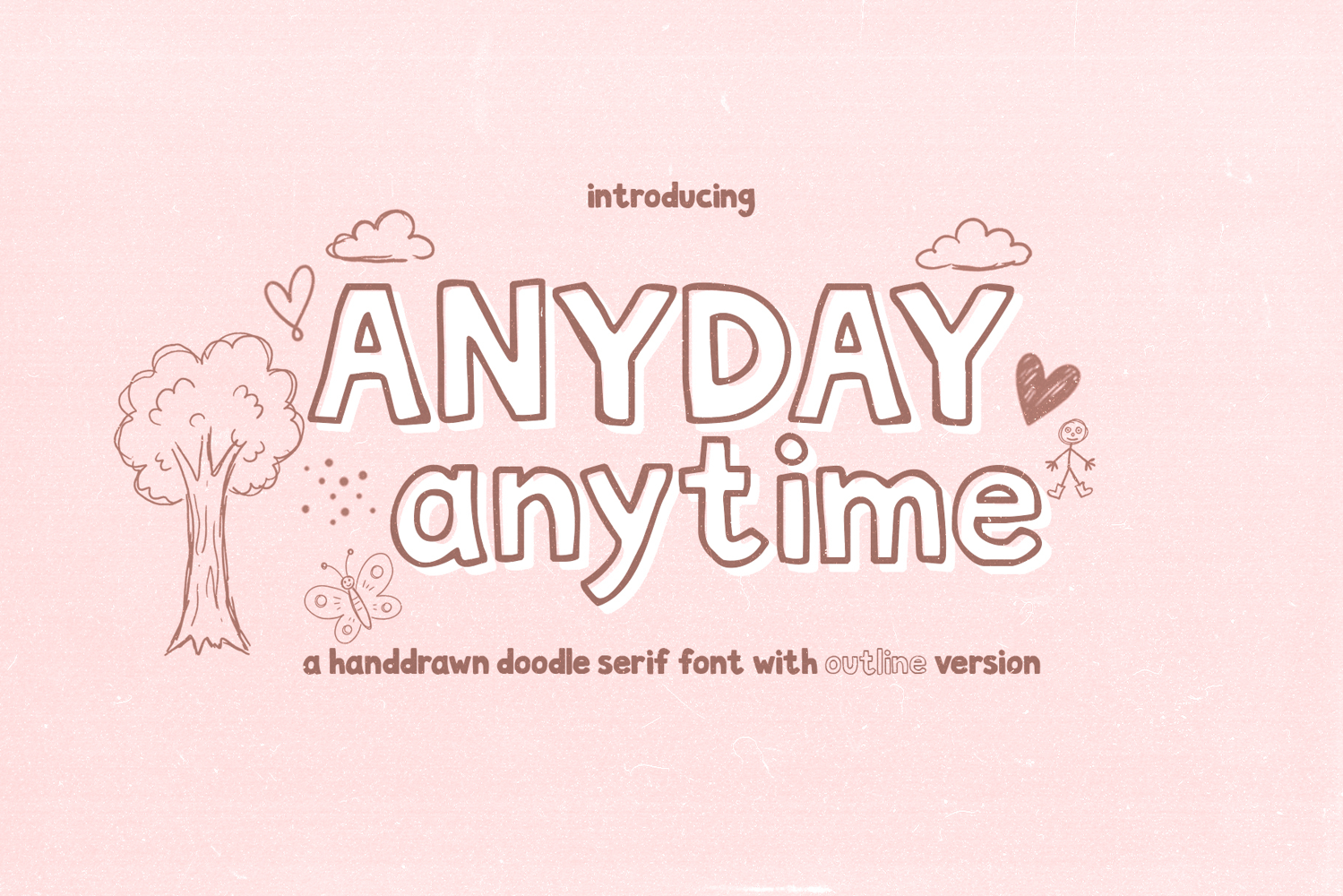
Anyday Anytime Playful Hand-Drawn Doodle Serif
Bring a touch of cozy, innocent joy to your designs with Anyday Anytime, a charmingly imperfect serif font inspired by hand-drawn sketches and playful doodles. With its rustic line work and friendly character, this font is crafted to look authentic, warm, and full of storytelling vibes.
This pack comes with two versatile versions Regular and Outline which can be stacked or mixed together to create dynamic, eye-catching layouts for kids' products, creative branding, and trendy packaging.
Best Used For:
• Kids & Birthday Brands: Birthday party invitations, children's room decor, nursery art, clothing tags, and kids' book typography.
• Creative Pantry Labels: Aesthetic spice jars, organic kitchen organizers, bakery stickers, and homemade food packaging.
• Merchandise & Crafts: Sticker packs, tote bags, t-shirt quotes, greeting cards, and vinyl cutting crafts.
• Social Media & Branding: Playful Instagram graphics, quirky logo designs, and cute digital planners.